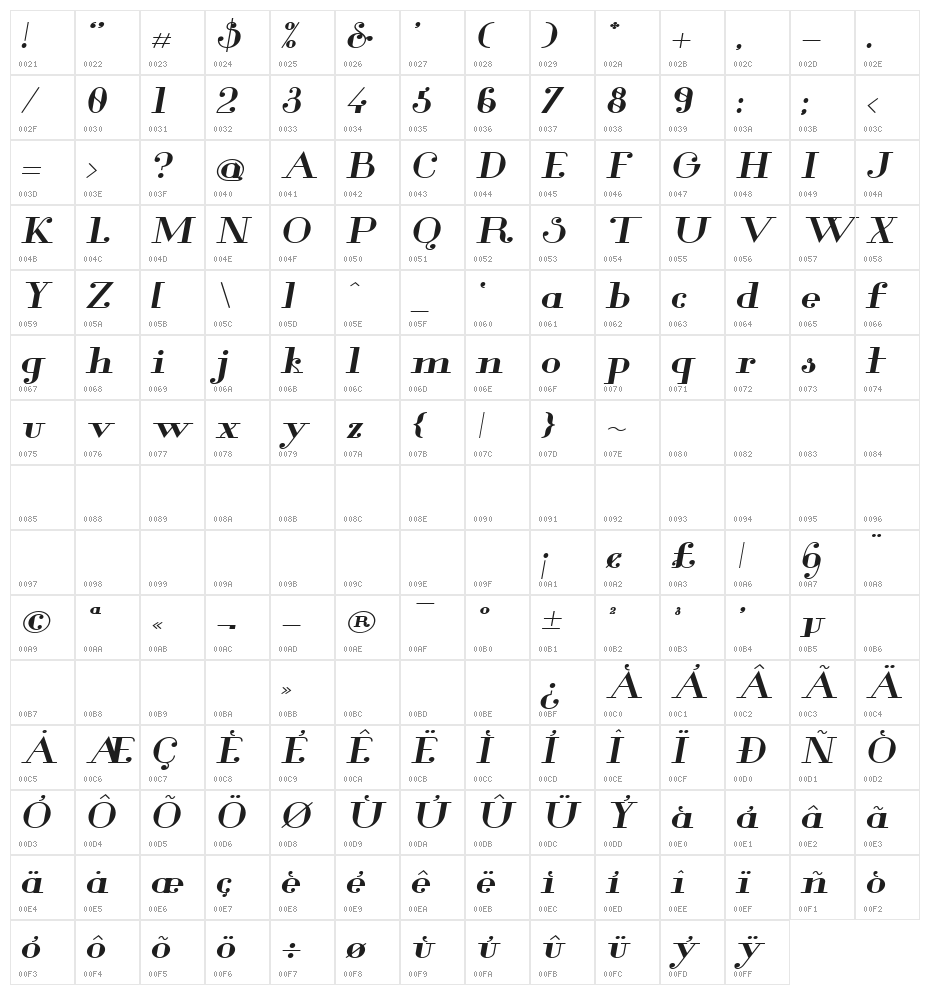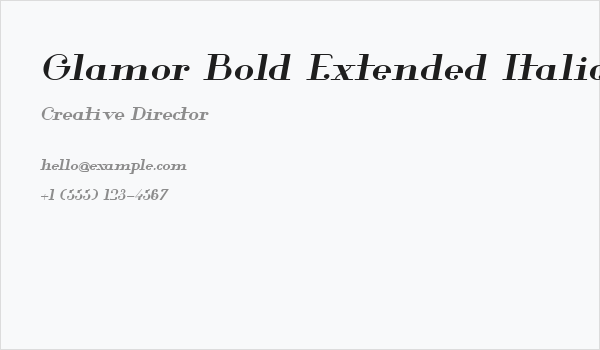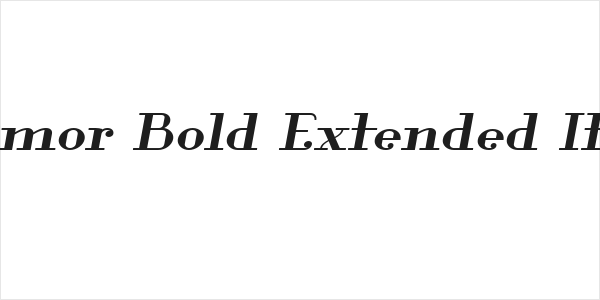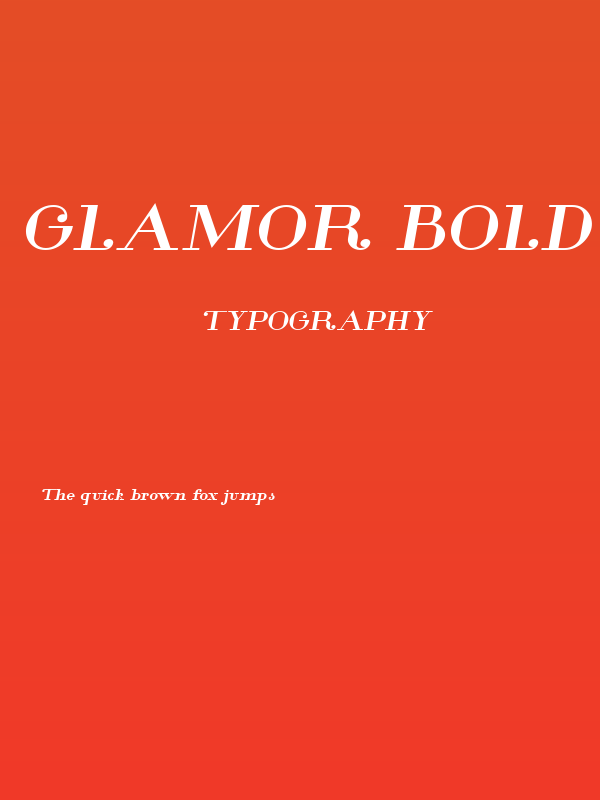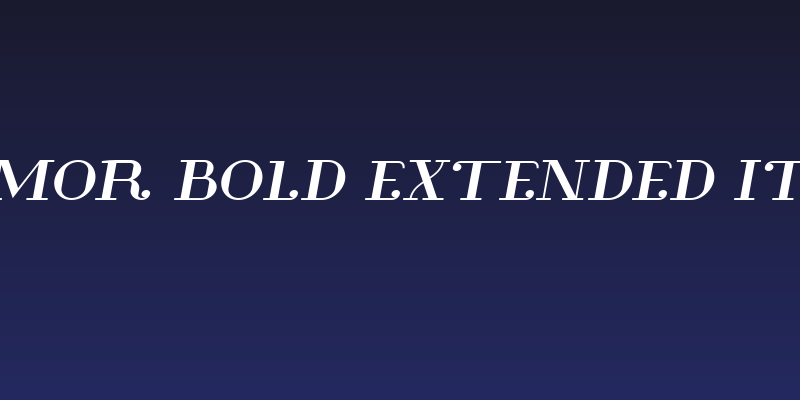
Glamor Bold Extended Italic Font
Glamor Bold Extended Italic Description
This font exhibits a bold and extended style with a distinct italic slant, offering a sophisticated and elegant appearance. The uppercase letters are characterized by sharp serifs and a high contrast between thick and thin strokes, giving a dramatic flair. The lowercase letters maintain a consistent style with a slightly more rounded appearance, enhancing readability. Numerals are designed with the same boldness and elegance, making them stand out. Special characters are crafted with attention to detail, ensuring they complement the overall aesthetic. This font is ideal for making a statement while maintaining a classic and refined look.
| Proposed Projects | Ideal for luxury branding, editorial headlines, fashion magazines, and elegant invitations. |